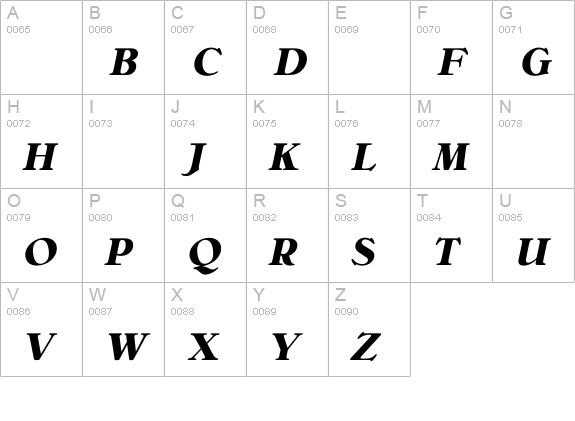
BelliniBoldItalic Font Details
Introducing BelliniBoldItalic - a stunning and elegant font that exudes sophistication and modernity. With its bold yet graceful curves and delicate italic styling, this typeface is perfect for adding a touch of class to any design project. Whether you're working on a high-end branding project or creating eye-catching signage, BelliniBoldItalic is sure to make a lasting impression. But what makes BelliniBoldItalic truly special is that it is available for free download at FontsMarket.com. Yes, you read that right - this exquisite font can be yours at no cost, allowing you to elevate your designs without breaking the bank. So why wait? Head over to FontsMarket.com now and add BelliniBoldItalic to your font collection today!